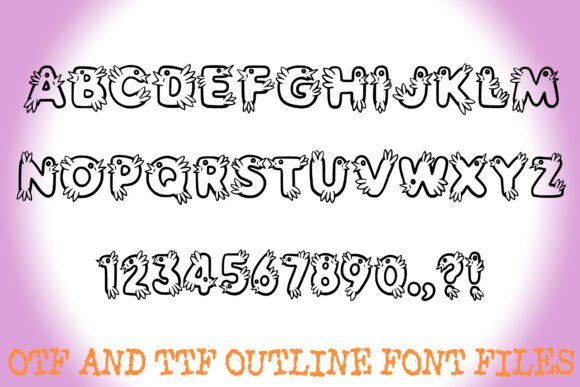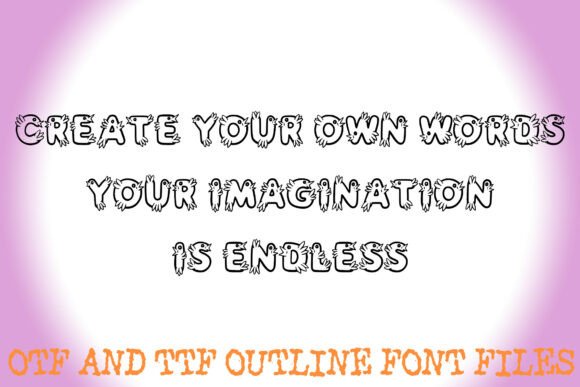
Bird Cartoon Font – Free Download
Introduction to Bird Cartoon Font
Take flight with the adorable Bird Cartoon Alphabet Font.
This truly unique decorative typeface transforms every letter and number into a charming, chubby cartoon bird Each character features little wings, a tiny beak, and expressive eyes, giving your text an immediate sense of cheer and playfulness.
Key Features of Bird Cartoon Font